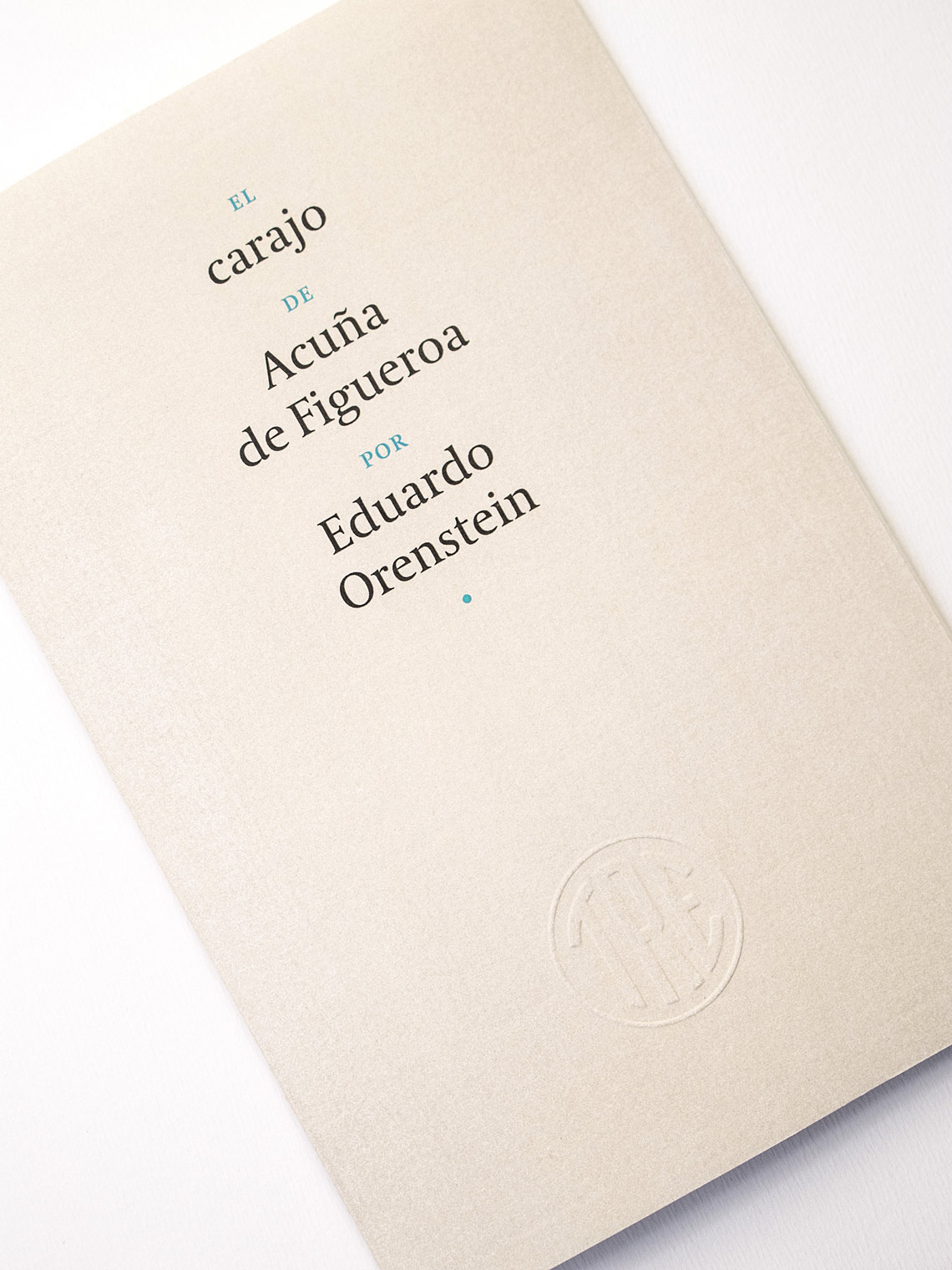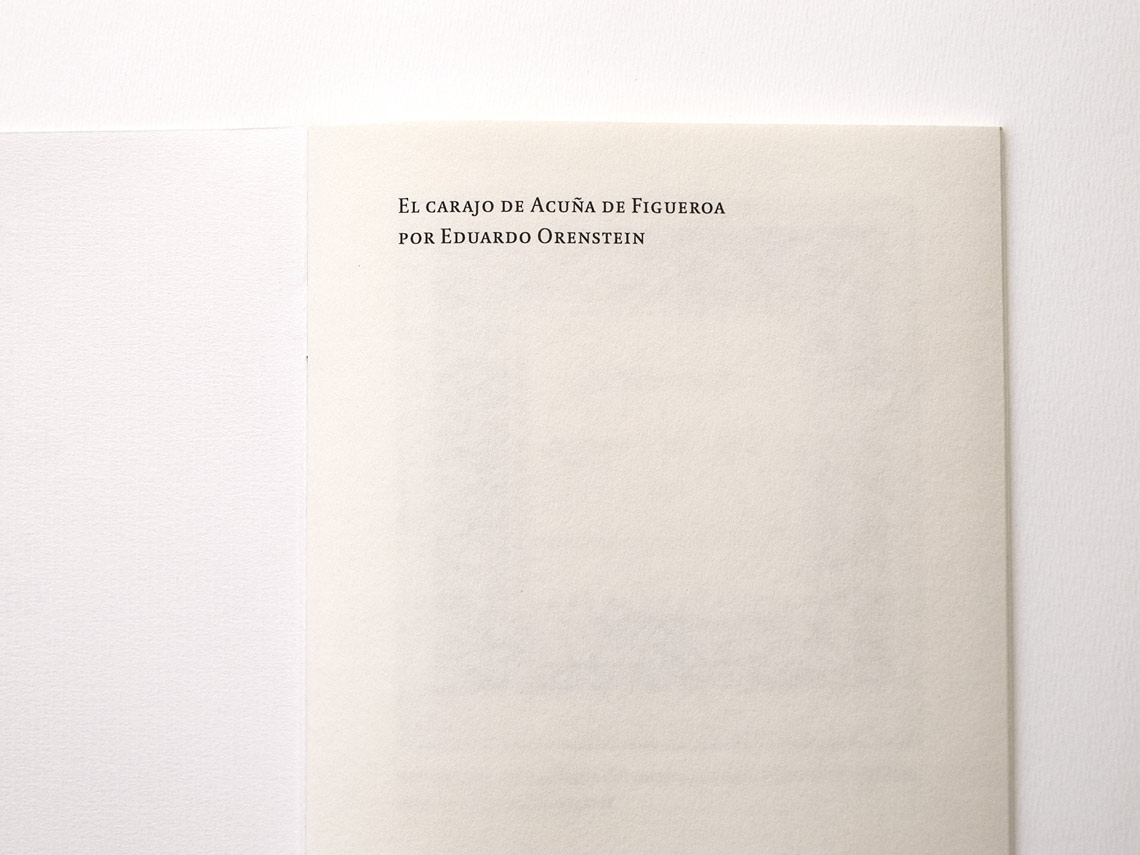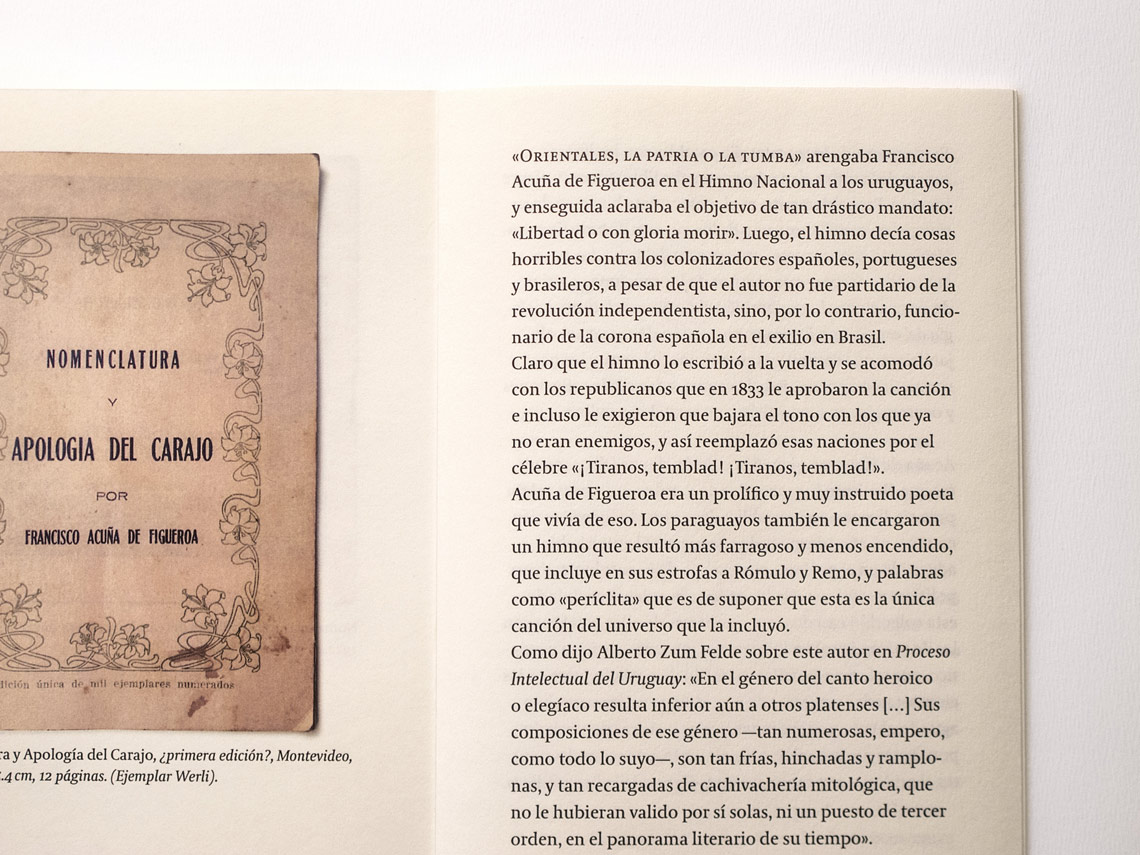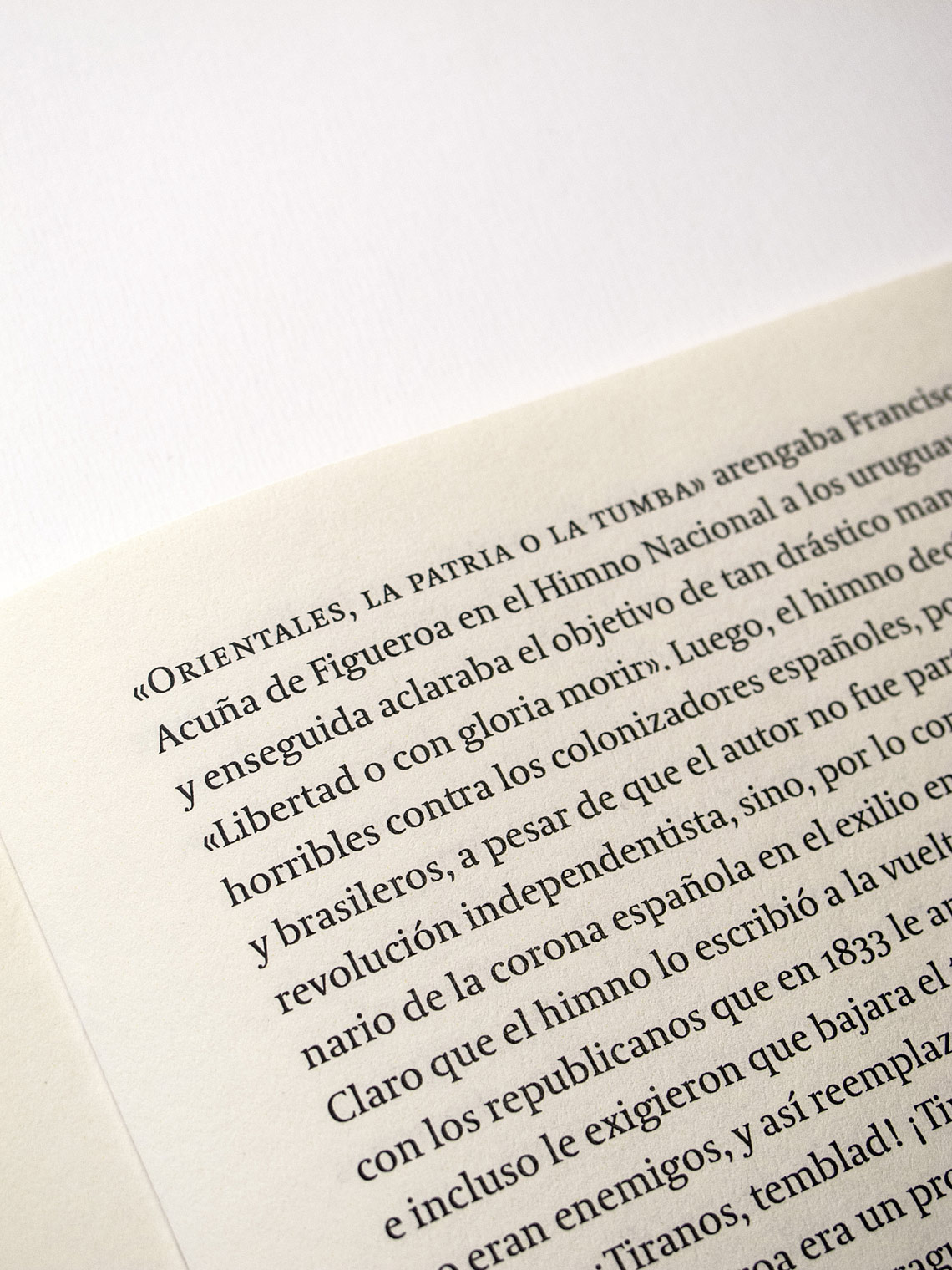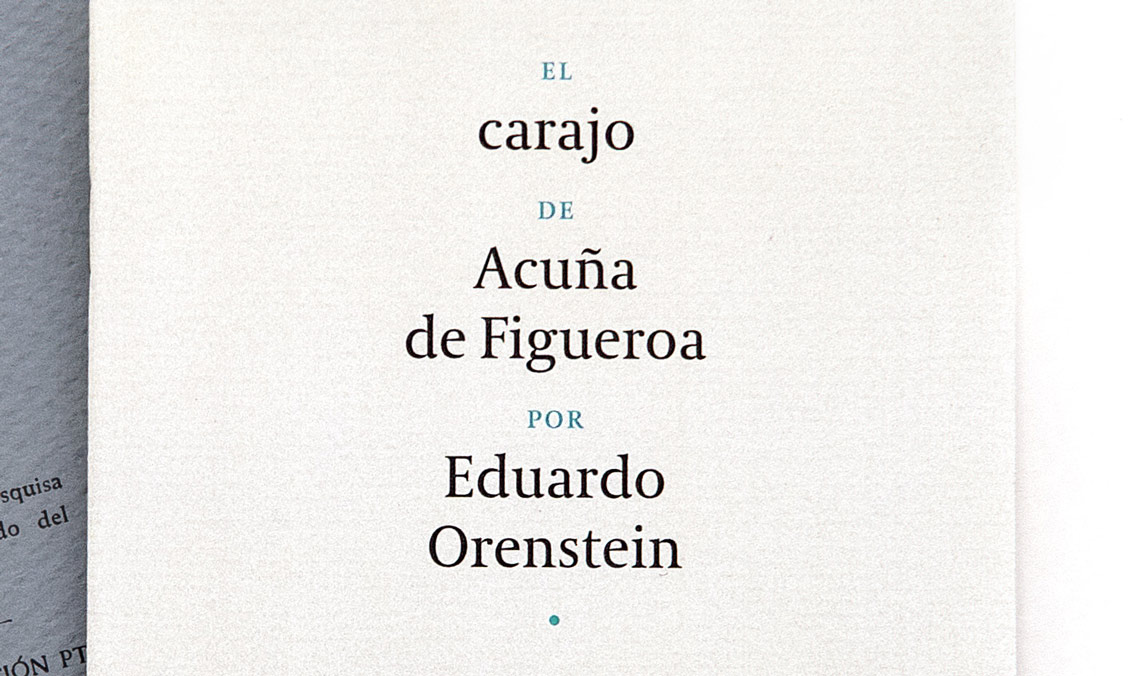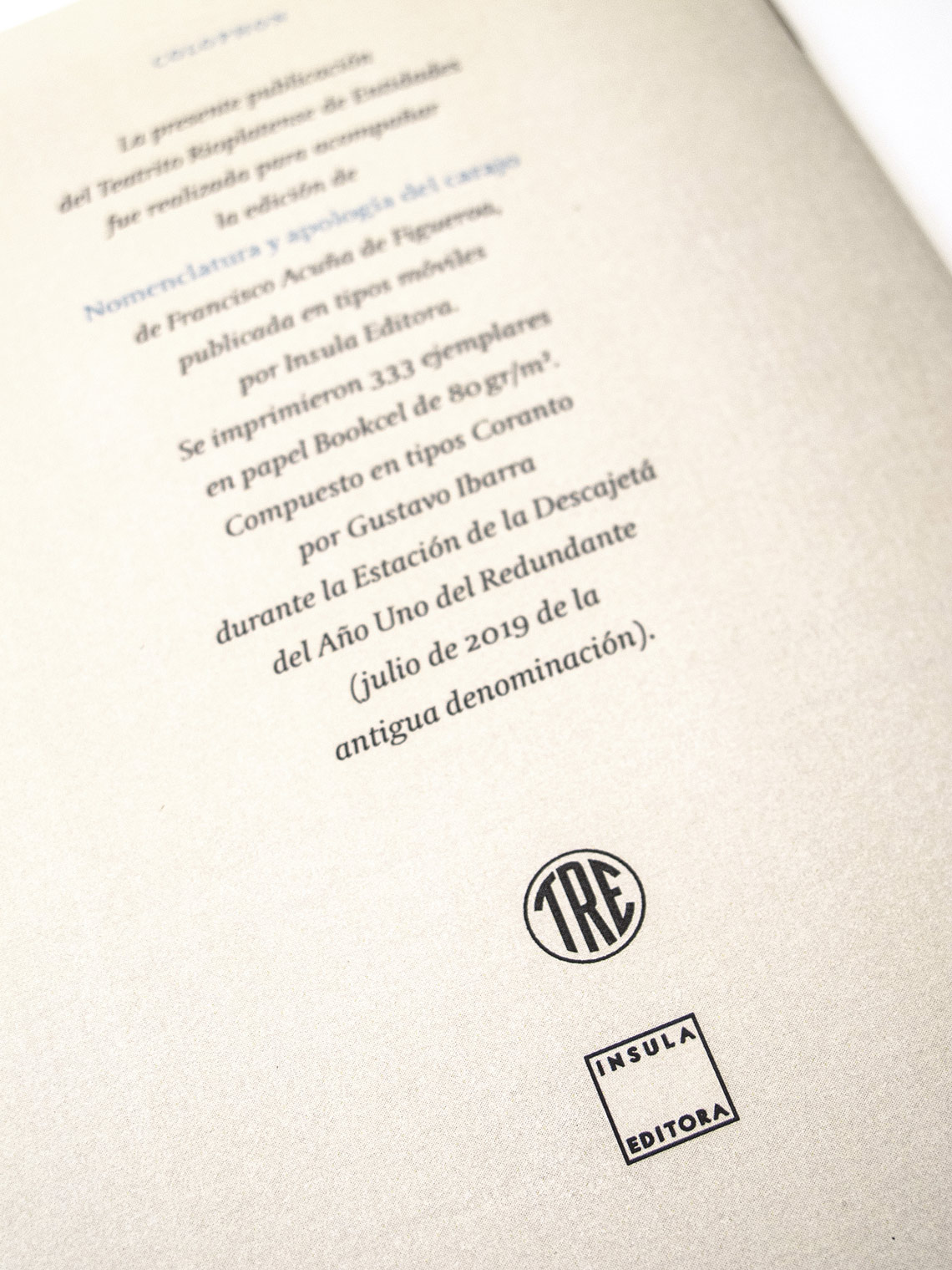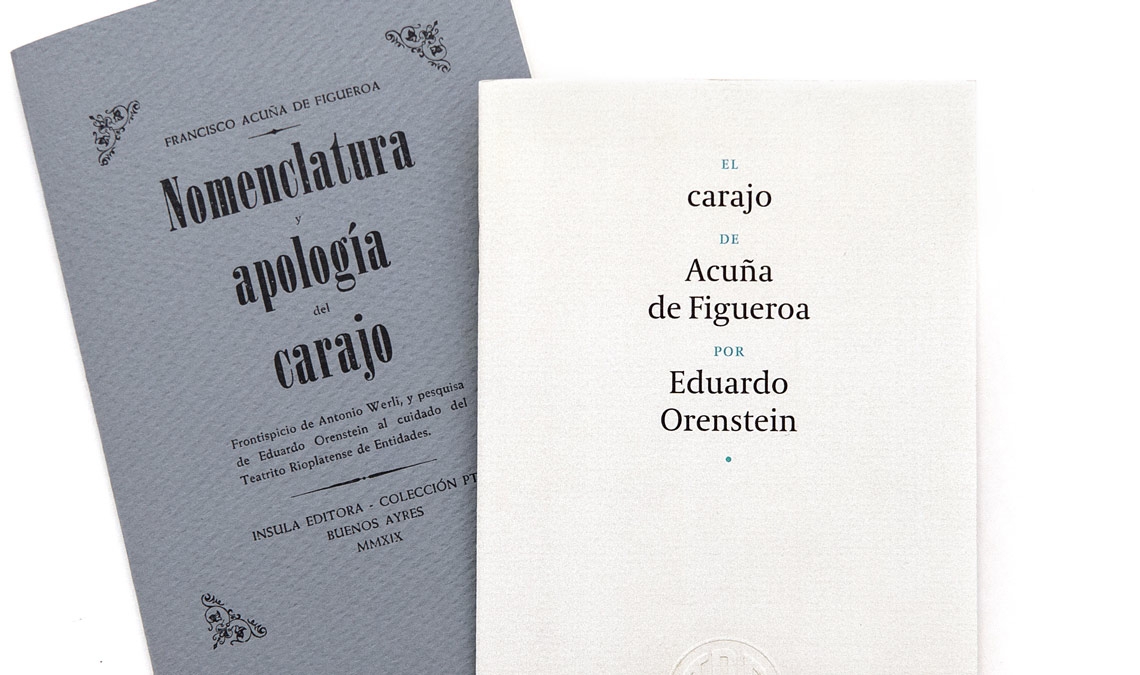
El carajo de Acuña de Figueroa
Coranto 2 in use in the Argentinian edition of El carajo de Acuña de Figueroa by Eduardo Orenstein, a research about Acuña Figueroa’s poem Nomenclatura y apología del carajo
Francisco Acuña de Figueroa (1791–1862) was an Uruguayan poet and writer well known for writing the words of the national anthems of Uruguay and Paraguay.
Among many other texts, he wrote a satirical poem about male genitalia, Nomenclatura y apología del carajo (translated as Nomenclature and defense of the male sex) in the 1850s. For obvious reasons it was not printed until later, in 1922, and only in some kind of private circulation.
Insula Editora, publishing house from Argentina has recently edited a double volumen with the original text from Acuña de Figueroa, letterpress printed. The second volume includes the research by Eduardo Orenstein, eclectic writer from Uruguay, regarding the origins of the Nomenclatura and the controversies of the later editions.
Gustavo Ibarra, type designer and typographer, designed the Orenstein’s booklet, El carajo de Acuña de Figueroa. Inspired by Eric Gill’s Essay on typography (1930), he choose Gerard Unger’s Coranto 2 for the composition: “Coranto 2 matches perfectly with this approach, it brings a clear and compact line of text, and provides a classic and contemporary style at the same time”.